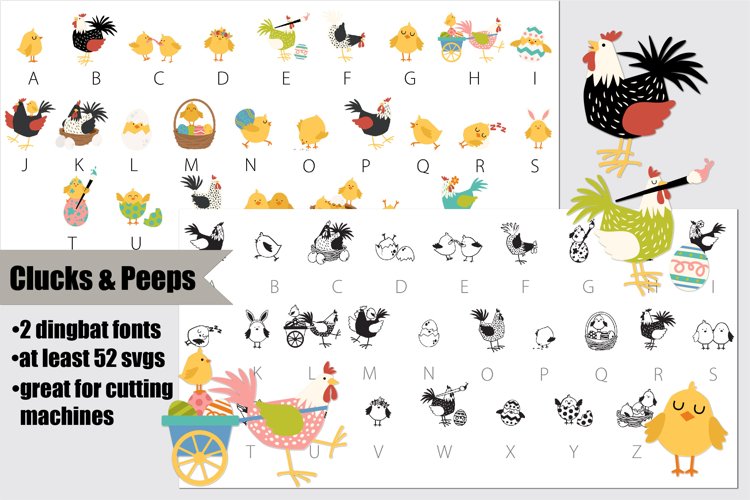
Clucks and Peeps
There are two dingbat fonts in this bundle. One is a traditional, black and white dingbat of cute chicks, chickens, roosters, and easter imagery and the second is a full-color SVG dingbat of the same things. Perfect for vinyl and cutting machines!